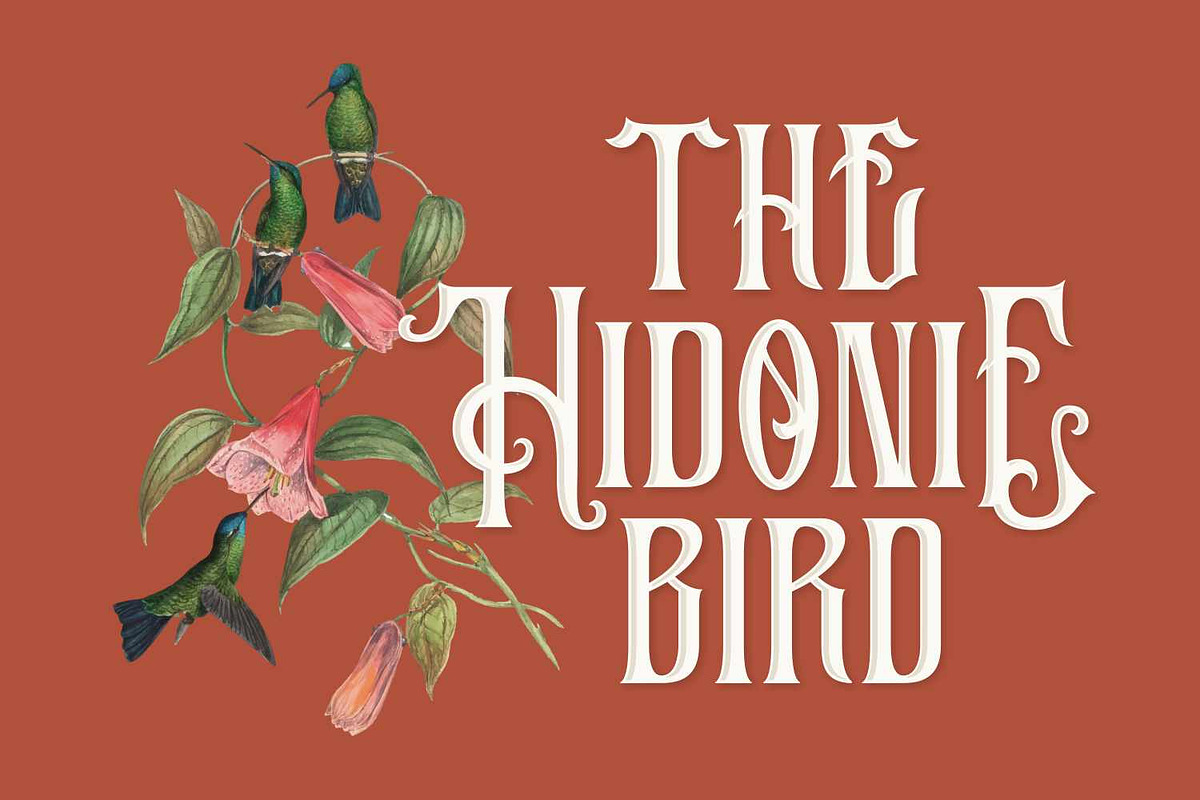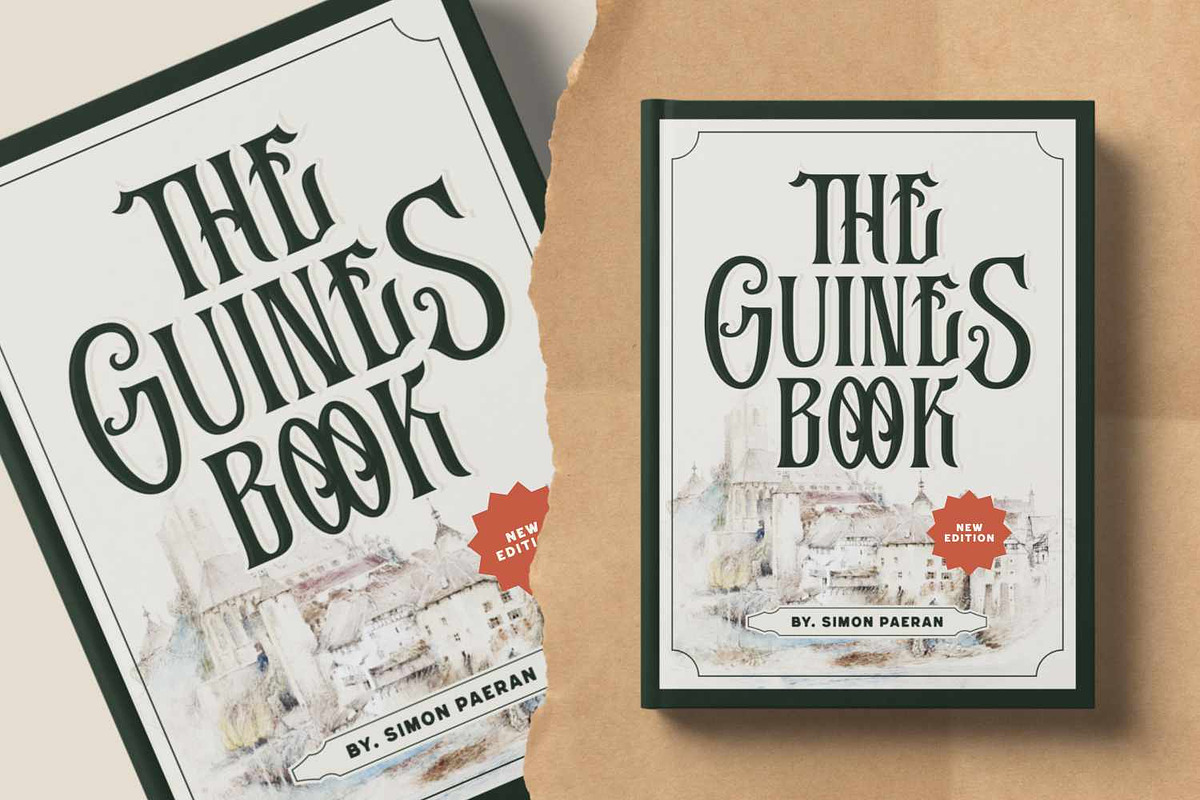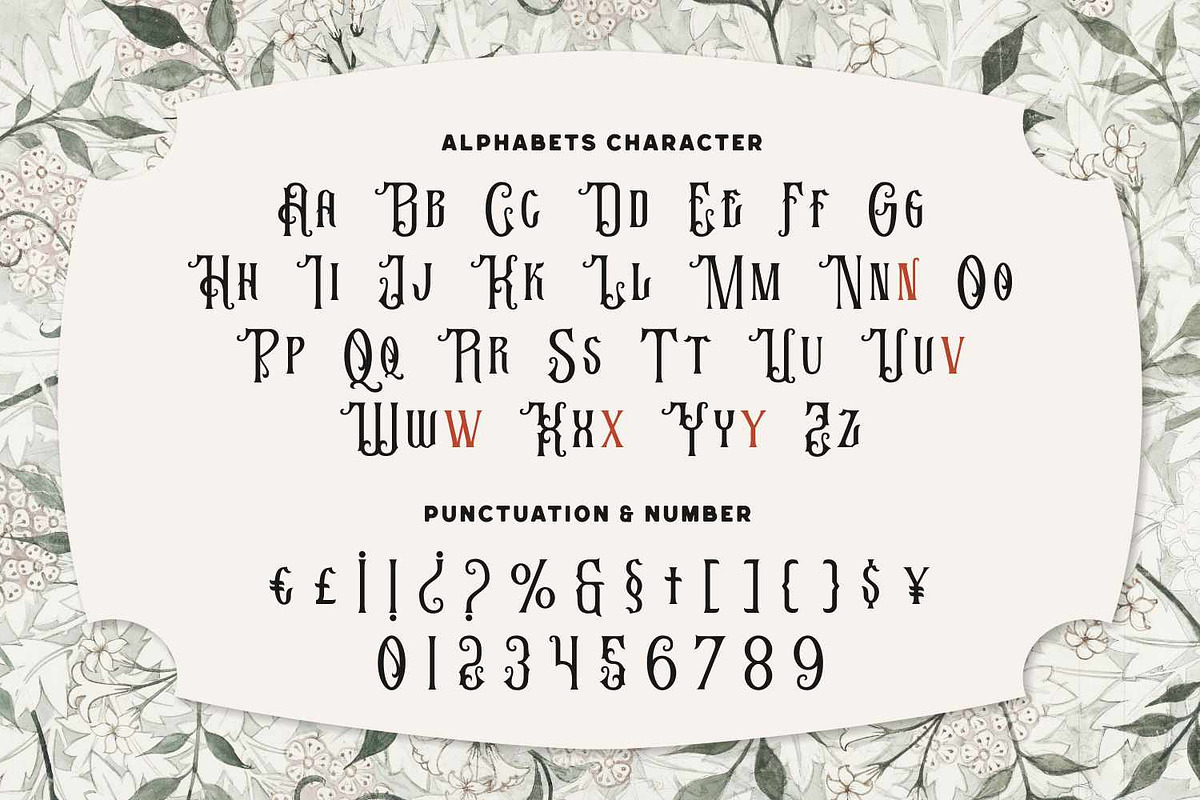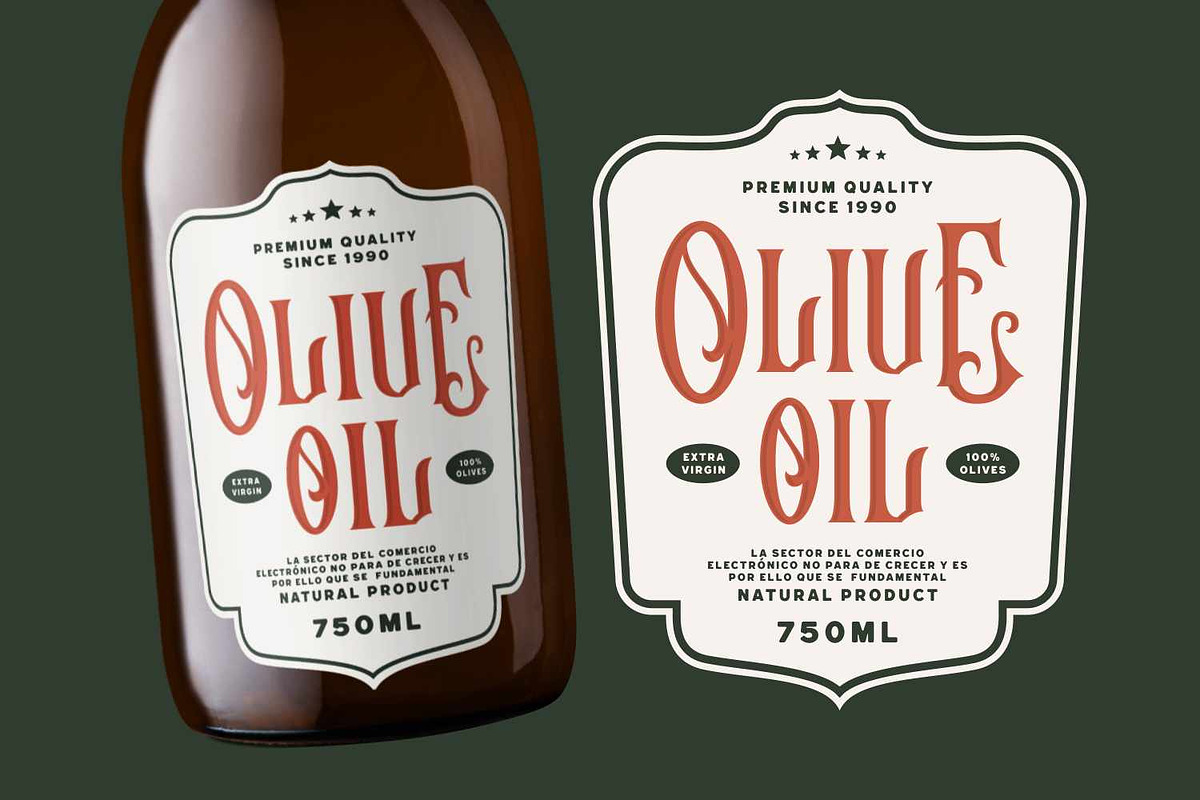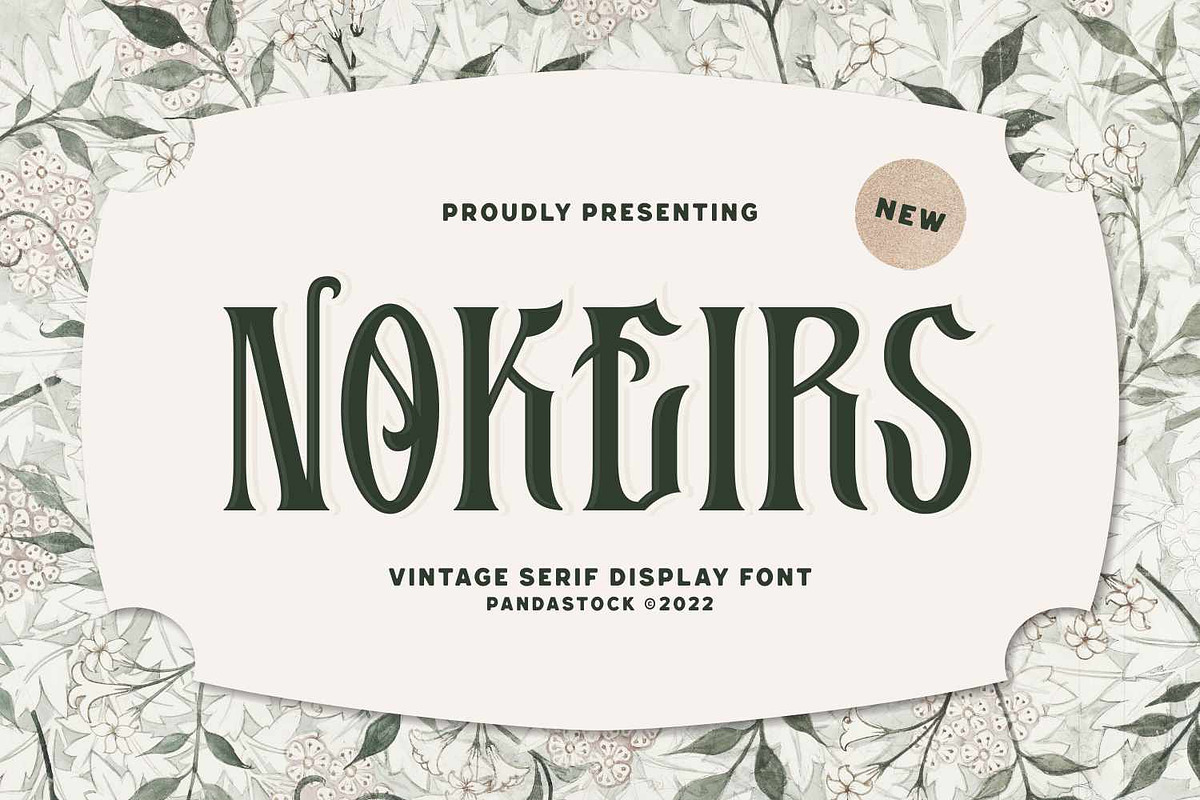
Nokeirs - Decorative Vintage
Nokeirs is a decorative vintage style font influenced by art nouveau and gothic which has unique arches and decorative accents. Its tall and narrow letterforms are refined with intricate curly and sharp serifs, combined with thick and thin strokes that create a dramatic artistic effect. This gives the font an antique and handcrafted feel.
The font is highly stylish, making it ideal for display purposes such as logos, decorative headlines, book cover, vintage designs, themed designs like victorian or halloween projects.
Uppercase and Lowecase Characters.
PUA Encoded Characters.
Numerals and Punctuations.
Alternates and Ligatures.
Multilingual Support.